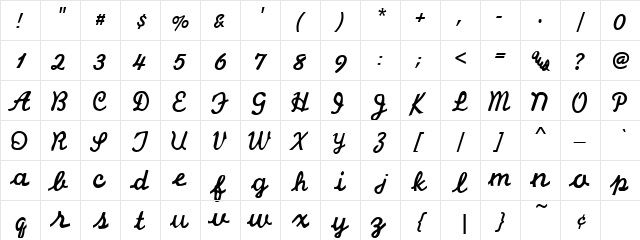
Cafe1 Regular Font Preview
Cafe1 Regular
Design Context for Cafe1 Typeface
Cafe1 is a composed and adaptable typeface that performs quietly and consistently across a wide range of design contexts.